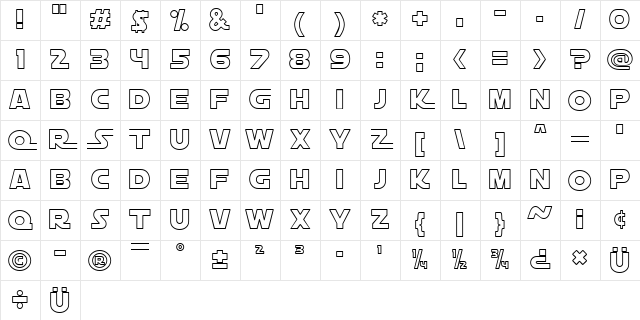
Complete A New Hope Outline Regular glyph index. Displaying only characters natively supported by A New Hope Outline Regular font.
A New Hope Outline is built around its visual character rather than neutral utility - its distinctive forms are designed to make an impression at display sizes.
Font Pairing: Pair with a clean neutral sans-serif for body copy to let A New Hope Outline's character lead without overwhelming the composition.
Pro Tip: Use A New Hope Outline exclusively at display sizes - it was designed to be seen, not read at length. Let a neutral companion handle body copy.